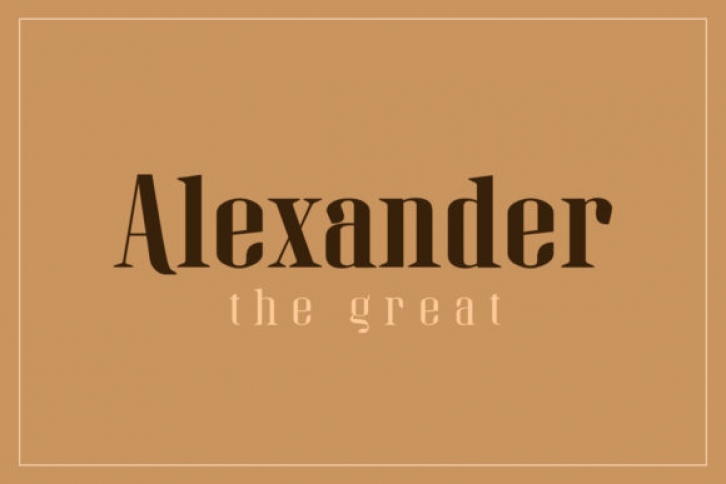
Alexander is a beautiful, elegant and neat lettered serif font. It can easily be matched to an incredibly large set of projects, so add it to your creative ideas and notice how it makes them stand out!